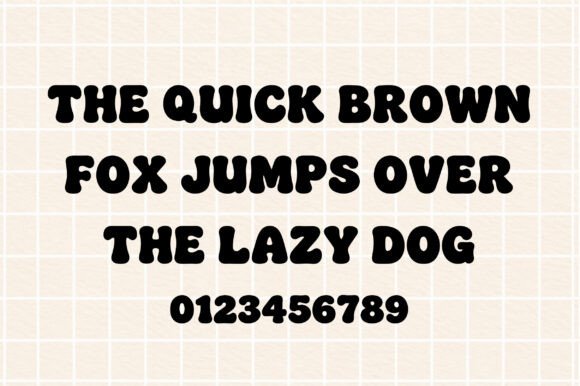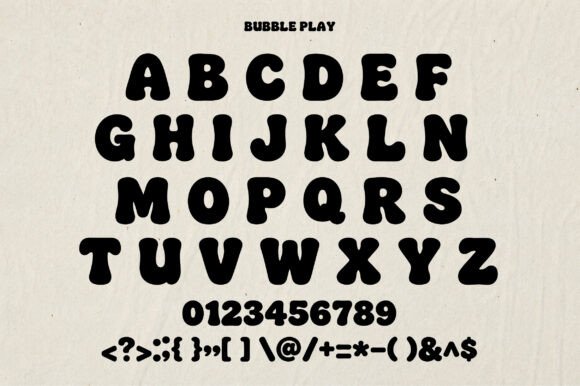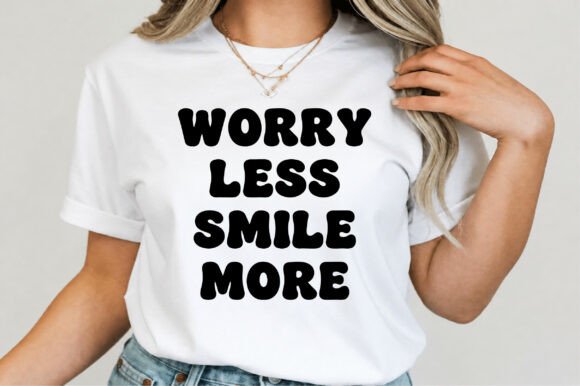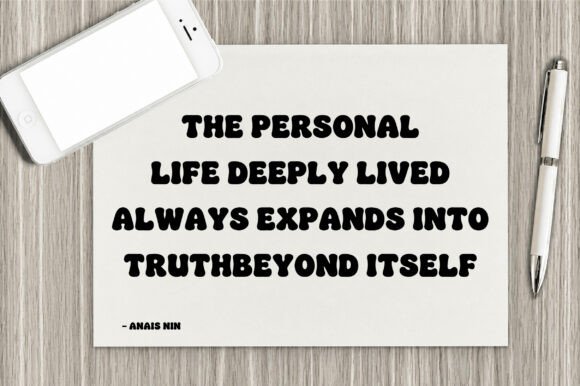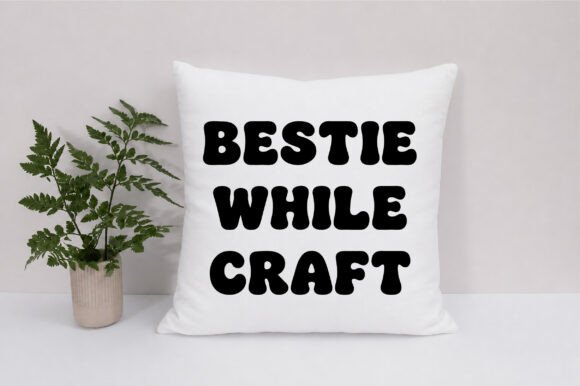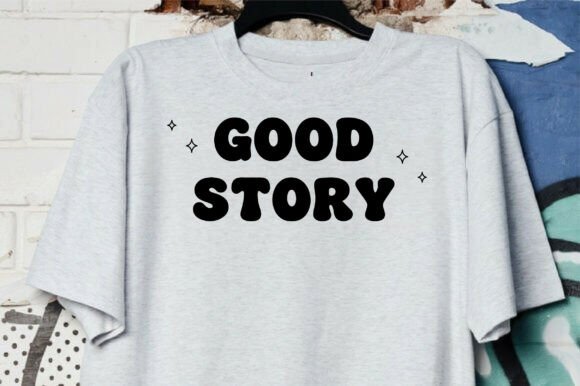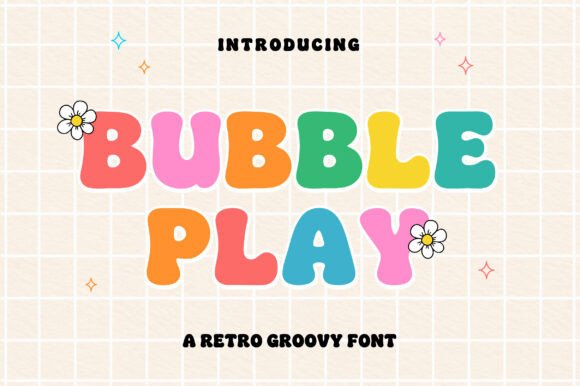
Bubble Play Font: Add a Groovy Touch to Your Designs
Are you looking for a font that can add a fun and playful touch to your designs? Look no further than the Bubble Play Font! This retro groovy font is perfect for creating eye-catching designs that are sure to delight kids and adults alike. With its soft bubble-style letters and bold vintage vibe, Bubble Play is the ideal choice for a wide range of design projects.
What is Bubble Play Font?
Bubble Play Font is a unique and creative display font that brings a happy 70s-inspired aesthetic to your designs. Its smooth rounded shapes and eye-catching character styles make every design feel fun, colorful, and energetic. The font includes uppercase letters, numbers, and special characters, making it versatile and perfect for a variety of design uses.
Perfect for Kids Designs and Creative Crafts
Bubble Play Font is especially perfect for kids designs, t-shirts, posters, stickers, branding, social media graphics, Cricut projects, and cheerful creative crafts. The font’s playful and fun style is sure to appeal to kids and make your designs stand out. Whether you’re creating materials for a kids’ party, designing a logo for a children’s brand, or making fun crafts with your kids, Bubble Play Font is the perfect choice.
Key Features of Bubble Play Font
- Retro Groovy Style: Bubble Play Font has a bold vintage vibe that’s perfect for creating designs that are fun and playful.
- Soft Bubble-Style Letters: The font’s soft bubble-style letters are smooth and rounded, making them perfect for creating eye-catching designs.
- Uppercase Letters, Numbers, and Special Characters: The font includes a wide range of characters, making it versatile and perfect for a variety of design uses.
- Perfect for Kids Designs: Bubble Play Font is especially perfect for kids designs, including t-shirts, posters, stickers, and more.
- Kids Party Materials: Use Bubble Play Font to create fun and playful materials for kids parties, including invitations, banners, and decorations.
- T-Shirts and Apparel: Add a groovy touch to your t-shirts and apparel designs with Bubble Play Font.
- Posters and Flyers: Use Bubble Play Font to create eye-catching posters and flyers for kids events and activities.
- Social Media Graphics: Add a playful touch to your social media graphics with Bubble Play Font.
- Cricut Projects: Use Bubble Play Font to create fun and playful Cricut projects, including vinyl decals, iron-on designs, and more.
- Unique and Creative: Bubble Play Font is a unique and creative display font that’s sure to make your designs stand out.
- Perfect for Kids Designs: Bubble Play Font is especially perfect for kids designs and creative crafts.
In conclusion, Bubble Play Font is a fun and playful retro groovy font that’s perfect for creating eye-catching designs that are sure to delight kids and adults alike. With its soft bubble-style letters and bold vintage vibe, Bubble Play is the ideal choice for a wide range of design projects, including kids designs, t-shirts, posters, stickers, branding, social media graphics, Cricut projects, and cheerful creative crafts. So why wait? Download Bubble Play Font today and add a groovy touch to your designs!